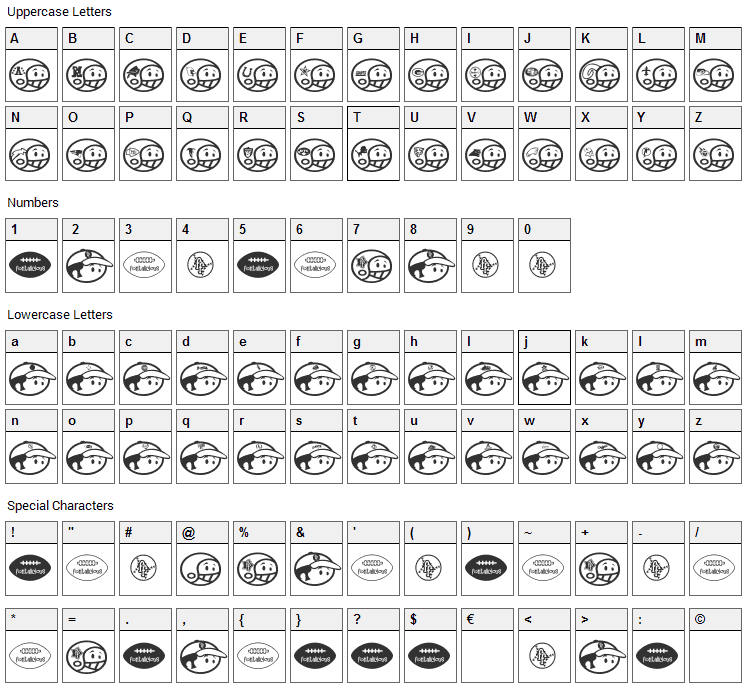
Sporto Font
Font Name:Sporto
Category:Dingbats > Heads
One for the sports fans. I'm making my rounds here, folks. If you like football, if you like baseball, you have yourself a new font. Find your favorite team and paste this font on what you will. You like the Chicago Cubs? They're in there. You a big Detroit Lions fan? Come and git it. You'll notice the teams that aren't represented were the ones I thought were too hard to draw. Sorry Tigers fans. Go team!!